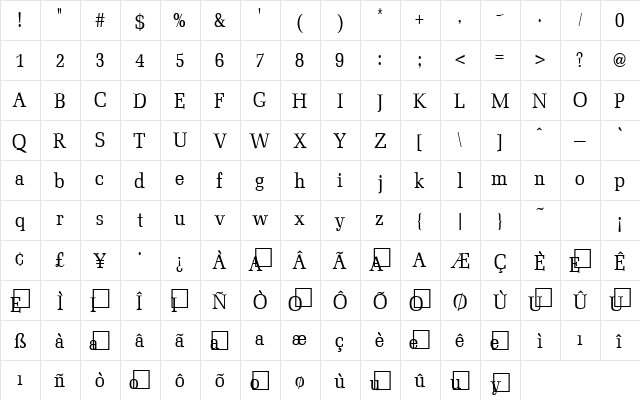
MiniMezzo Regular
Design Context for MiniMezzo Typeface
MiniMezzo is a composed and adaptable typeface that performs quietly and consistently across a wide range of design contexts.